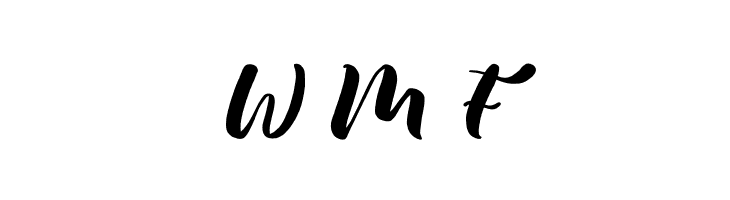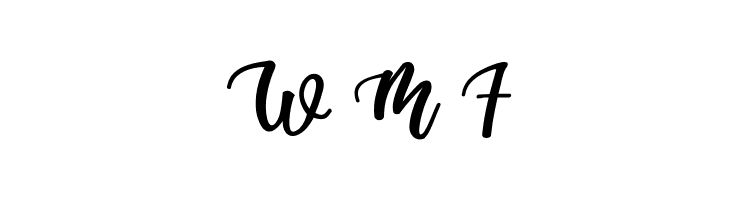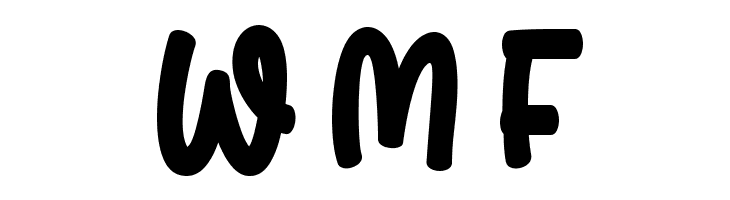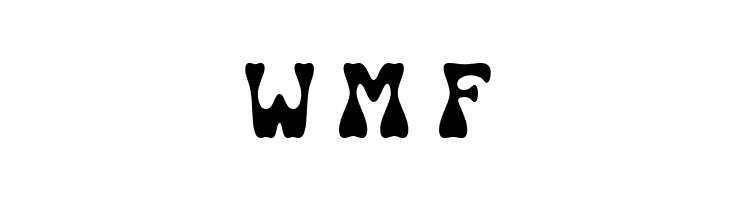
A bold, geometric, and italic font with a futuristic style.
A bold, geometric, and italicized font with a futuristic style.
A bold, shadowed font with sharp serifs and a three-dimensional effect.
An elegant script font with flowing, cursive lines and intricate swashes.
A cursive, handwritten font with elegant, flowing letters.
A graceful and elegant handwritten cursive font with flowing letterforms.
A bold, wavy, and playful font.
A playful, melting-style font with bold, outlined characters on a black background.
A modern, cursive font with bold, flowing strokes and elegant connections.
A bold, jagged font with sharp, spiky edges for an aggressive look.
A jagged, edgy font with thorn-like strokes, perfect for intense and rebellious designs.
A hand-drawn, artistic font with irregular, brush-like strokes.
A bold, decorative font with playful curves and high contrast, perfect for vintage-inspired designs.
A bold, expressive script font with flowing, cursive letters.
A graceful and sophisticated script font with flowing cursive letterforms.
A modern, geometric sans-serif font with clean lines and a futuristic feel.
An artistic, whimsical font with a gothic, hand-drawn style.
An artistic and whimsical font with a gothic flair and irregular strokes.
A playful, bold font with star cutouts and a modern outline style.
A lively and expressive handwritten font with dynamic strokes.
A bold, playful handwritten font with rounded characters.
A bold, flowing script font with a modern and elegant style.
A dynamic and flowing script font with an elegant, handwritten style.
A playful, rounded font with bold, uniform strokes and a friendly vibe.
A bold, cursive script font with high contrast and fluid strokes.
A bold, geometric font with a futuristic and sci-fi aesthetic.
A bold, geometric font with futuristic and abstract design elements.
A pixelated, blocky font with a retro digital style.
A bold, geometric sans-serif font with a modern, uniform design.
A playful, bold font with rounded edges and a friendly appearance.